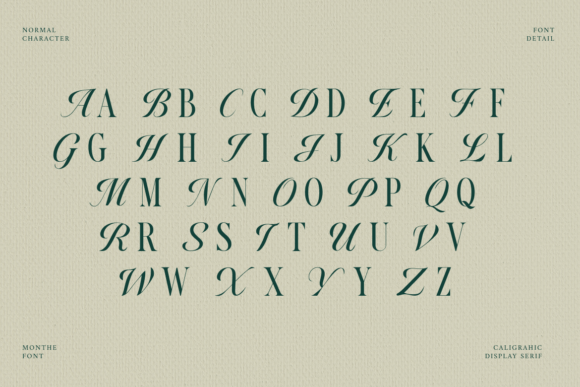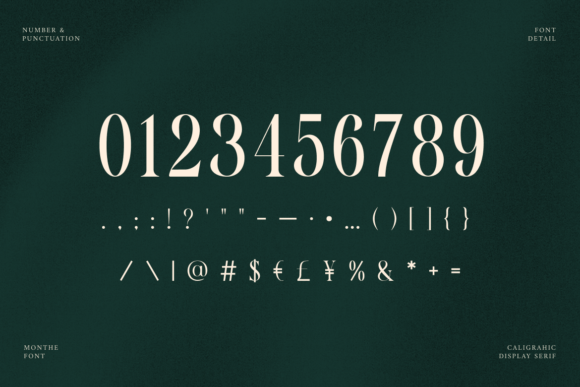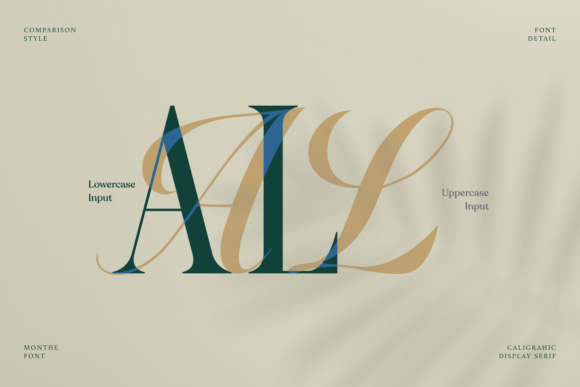
Introduction to Monthe Font
Monthe is a calligraphic display serif font that blends classic serif structure with graceful, flowing strokes.
Monthe is relevant for creative and editorial projects that require elegant and expressive typography The calligraphic serif details make it effective for luxury branding, fashion editorials, magazine layouts, invitations, posters, and refined visual compositions that emphasize sophistication and artistic style.